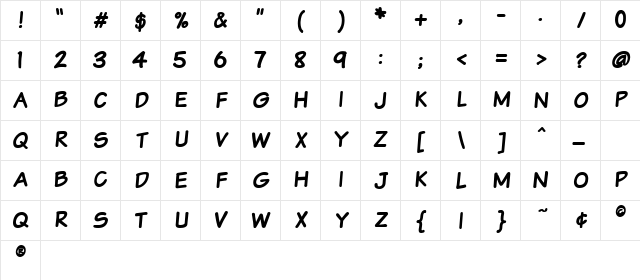
VTCSundaykomixcaps is a composed and adaptable typeface that performs quietly and consistently across a wide range of design contexts. Its bold stroke weight gives it real presence on the page.